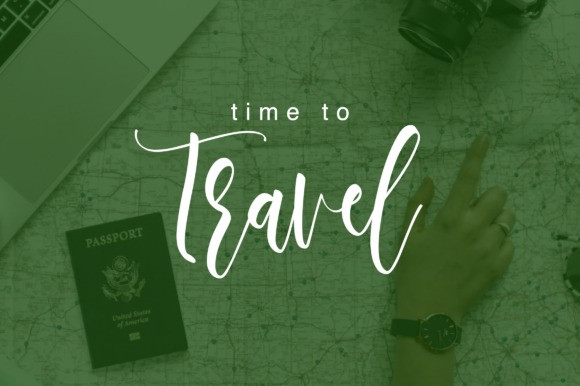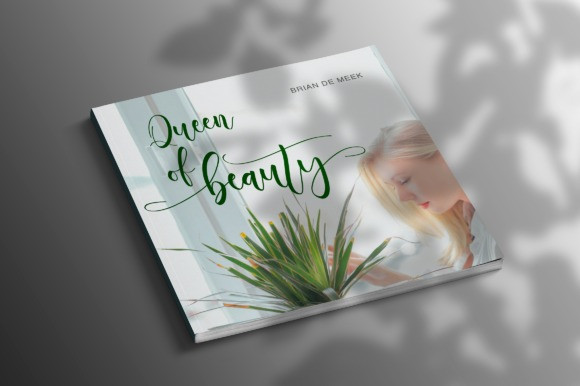
My Butterfly Script Font
My Butterfly feels incredibly elegant and flowing. It looks stunning on wedding invitations, thank you cards, quotes, greeting cards, logos, business cards and every other design which needs a handwritten touch.
This font is PUA encoded which means you can access all of the glyphs and swashes with ease! It features a varying baseline, smooth lines, gorgeous glyphs and stunning alternates.